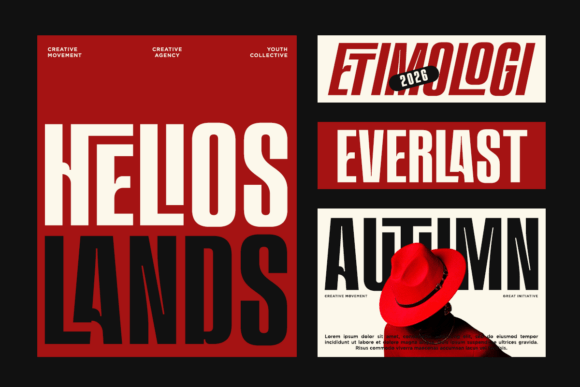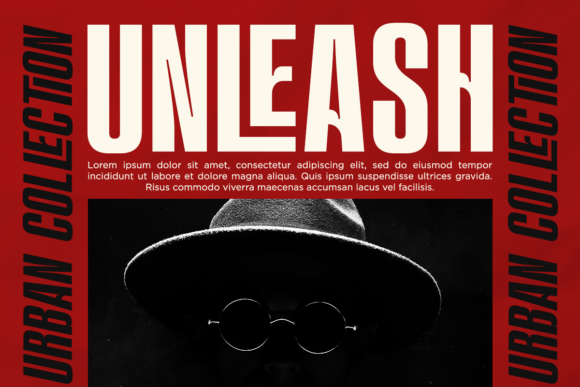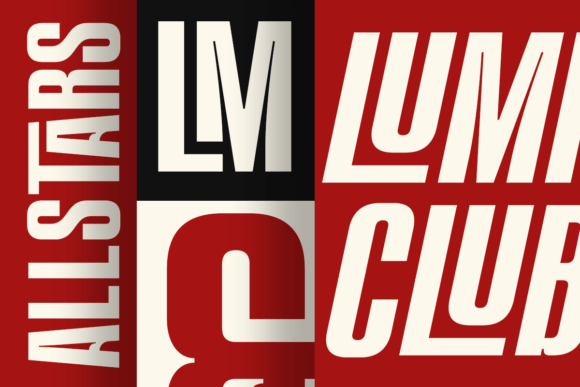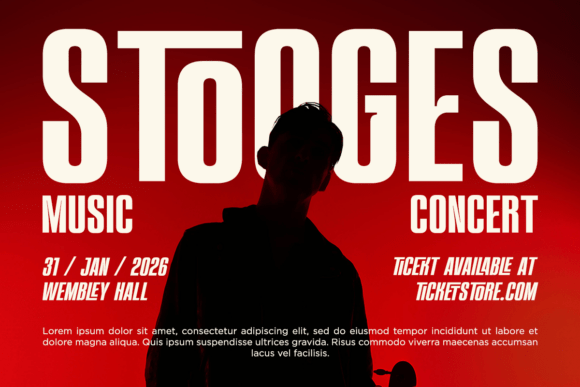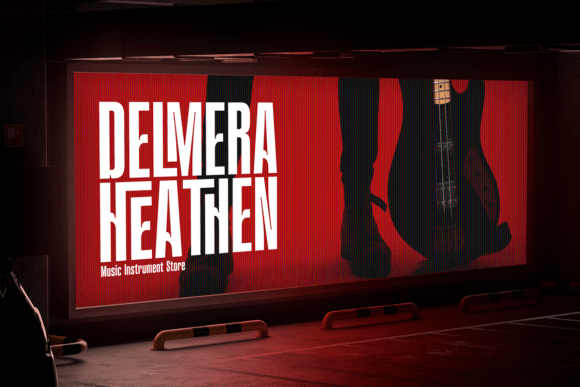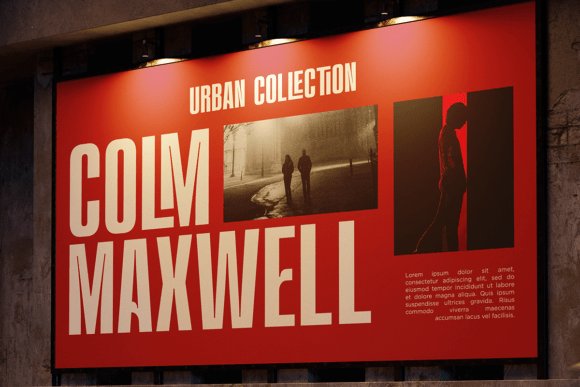
Unleash the Power of Cuturila Font: A Bold and Condensed Display Typeface
In the world of typography, a font can make or break a design. When it comes to creating a lasting impression, designers need a typeface that commands attention and exudes confidence. This is where Cuturila Font comes in – a bold condensed display font crafted to deliver immediate visual impact. With its tall proportions, strong vertical rhythm, and clean structure, Cuturila is the perfect choice for designers who want their message to feel strong, direct, and memorable.
The Power of Cuturila’s Design
Cuturila’s design is centered around delivering a powerful presence without sacrificing readability. Its tall proportions and strong vertical rhythm make it stand out at first glance, ensuring that your design grabs the attention it deserves. The font’s clean structure and solid weight ensure excellent legibility even at large sizes, making it ideal for a wide range of applications, from branding and posters to logos and packaging.
What Sets Cuturila Apart
So, what sets Cuturila apart from other display fonts? For starters, its subtle details and balanced spacing keep the overall look modern and professional. This attention to detail ensures that your design looks refined and polished, whether used in print or digital projects. Additionally, Cuturila’s bold and condensed design makes it perfect for creating striking headlines and bold typographic compositions.
Ideal Applications for Cuturila Font
Cuturila’s versatility makes it suitable for a wide range of applications, including:
- Branding: Create a lasting impression with Cuturila’s bold and confident design.
- Posters: Grab attention with Cuturila’s striking and eye-catching typography.
- Logos: Make a statement with Cuturila’s bold and memorable design.
- Packaging: Stand out on store shelves with Cuturila’s bold and attention-grabbing typography.
- Editorials: Add a touch of sophistication and elegance with Cuturila’s clean and refined design.
- Advertising: Cuturila’s bold and confident design is perfect for creating effective and memorable ads.
Why Choose Cuturila Font?
With so many fonts available, why choose Cuturila? Here are just a few reasons:
- Immediate Visual Impact: Cuturila’s bold and condensed design ensures that your message is seen and remembered.
- Excellent Legibility: Cuturila’s clean structure and solid weight ensure that your text is easy to read, even at large sizes.
- Modern and Professional: Cuturila’s subtle details and balanced spacing keep the overall look refined and polished.
- Versatile: Cuturila is suitable for a wide range of applications, from print to digital projects.
In conclusion, Cuturila Font is a powerful and versatile display typeface that is perfect for designers who want to make a lasting impression. With its bold and condensed design, clean structure, and excellent legibility, Cuturila is ideal for a wide range of applications. Whether used in print or digital projects, Cuturila delivers a bold statement with refined precision. So why settle for an ordinary font when you can make a statement with Cuturila?
Get Ready to Make a Statement with Cuturila Font